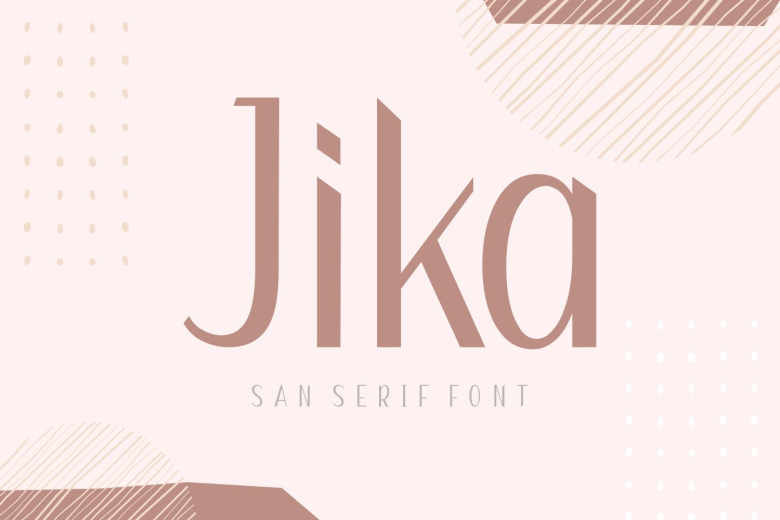
Jika Font
Jika is a modern sans serif font. Add this font to your creative ideas and notice how it will make them stand out!
Jika is perfect choice for people looking for clean, modern, minimalist, elegant, beauty design styles. Suitable for almost any graphic designs such as logo, branding materials, business cards, gift cards, t-shirt, cover, thumbnail, print, poster, photography, quotes .etc